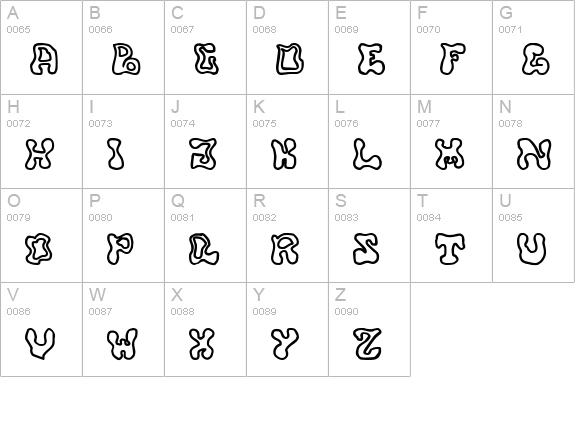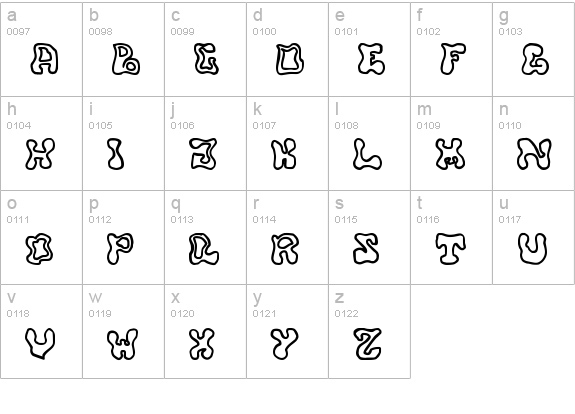
buffy Font Details
Buffy Font is a stylish and modern typeface that exudes elegance and charm. With its sleek lines and bold curves, this font is perfect for adding a touch of sophistication to any design project. Whether you're creating a logo, poster, or website, Buffy Font will make your text stand out and capture the attention of your audience. The best part? Buffy Font is available for free! You can easily download this beautiful font at FontsMarket.com and start using it in your projects right away. Don't miss out on this opportunity to enhance your designs with the timeless beauty of Buffy Font.